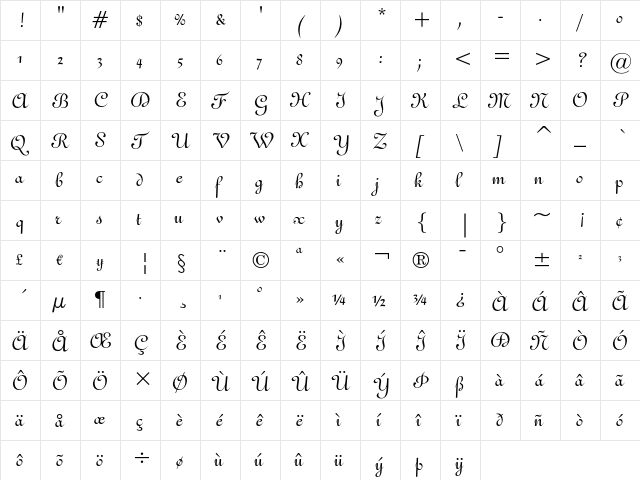
French 111 Regular
Design Context for French 111 Typeface
French 111 is a composed and adaptable typeface that performs quietly and consistently across a wide range of design contexts.